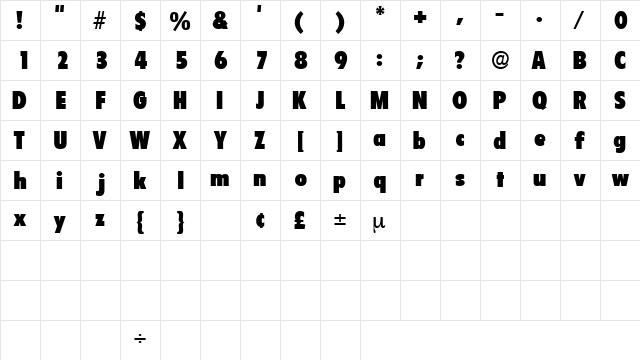
SeighDisplaySSK Regular
Design Context for SeighDisplaySSK Typeface
SeighDisplaySSK is built around its visual character rather than neutral utility — its distinctive forms are designed to make an impression at display sizes.
Font Pairing: Pair with a clean neutral sans-serif for body copy to let SeighDisplaySSK's character lead without overwhelming the composition.
Pro Tip: Treat SeighDisplaySSK as the centrepiece of your typographic hierarchy. One strong heading set in a decorative face can carry an entire layout.